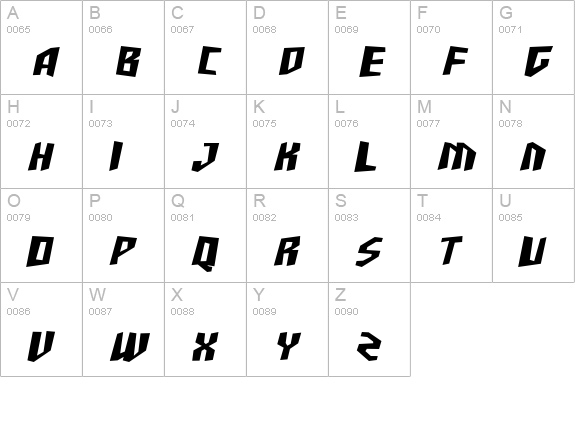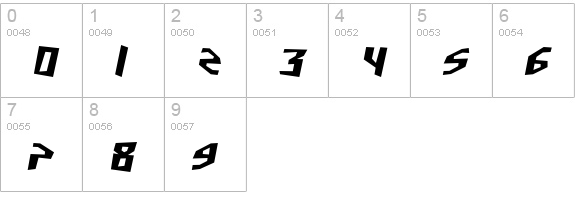
SF Junk Culture Bold Oblique Font Details
SF Junk Culture Bold Oblique is a strong, high-contrast, italic variant in the SF typeface family \xE2\x80\x94 well suited to headlines, attention-grabbing titles, and strong calls-to-action.
SF Junk Culture Bold Oblique font is a stunning display of fierce creativity and urban inspiration. With its bold and oblique design, this font captures the essence of the junk culture movement, fusing together elements of grunge, street art, and futuristic aesthetics. This font is a bold statement that demands attention, with its unconventional letterforms and dynamic angles. Each character is meticulously crafted to convey a sense of raw energy and edginess, making it perfect for projects that require a bold and daring touch. What sets SF Junk Culture Bold Oblique font apart is not only its striking visual appeal but also its versatility. Whether you're designing posters, album covers, branding materials, or any artwork that needs an unconventional twist, this font will breathe life into your creations. The best part is that SF Junk Culture Bold Oblique font is freely available to download at FontsMarket.com. With just a few clicks, you can add this unique and eye-catching font to your design arsenal, allowing you the freedom to explore and experiment with its boundless potential. So, unleash your creativity and embrace the boldness that SF Junk Culture Bold Oblique font brings. Let your designs break free from the conventional and make a statement that captures the essence of the urban landscape. Get your hands on this font today and see your projects transform into extraordinary works of art.